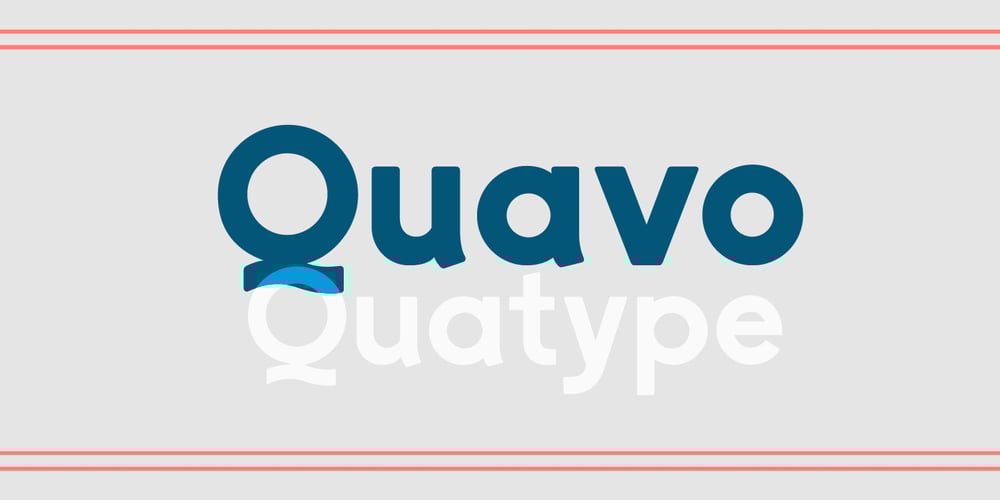
Quavo Font Family was designed by Quan-gang Li and published by Quatype. Quavo contains 6 styles and family package options. Quavo is a round sans font family, including regular and oblique font styles. Round corner of letters show the soft and friendly vibe and some letters for instance: letter a, b and d, they all have a tail at the end. It’s sort of personal preference, for I want to add some ornamental elements in this font.Quavo can be applied in lots of areas. Including but not limited in titles, posters, book pages and big display canvas.